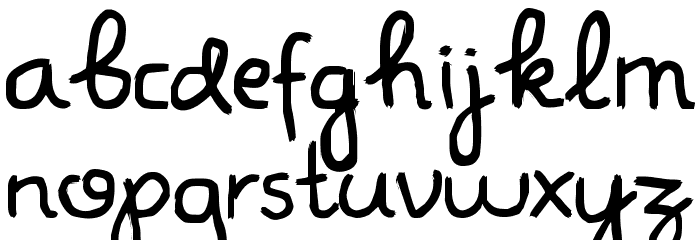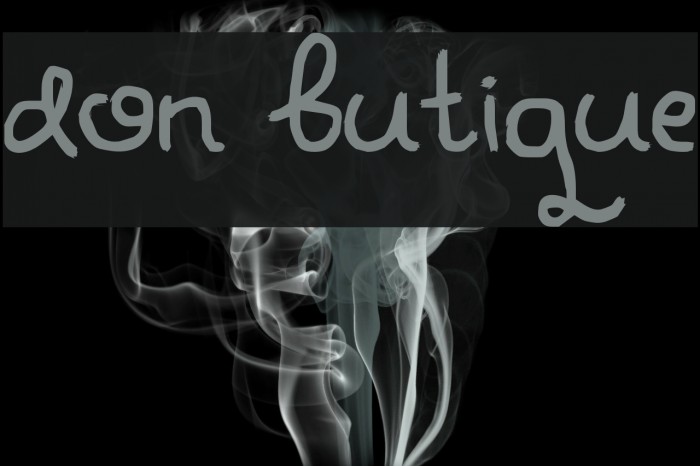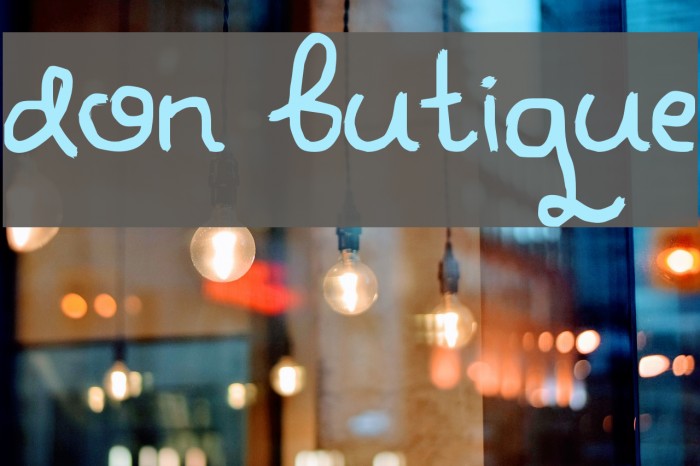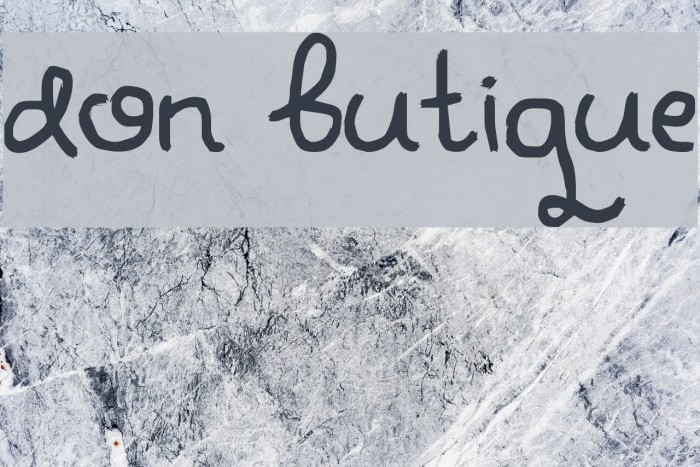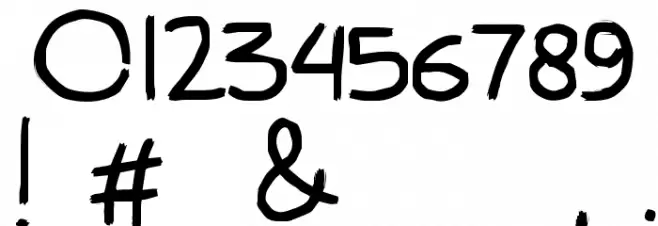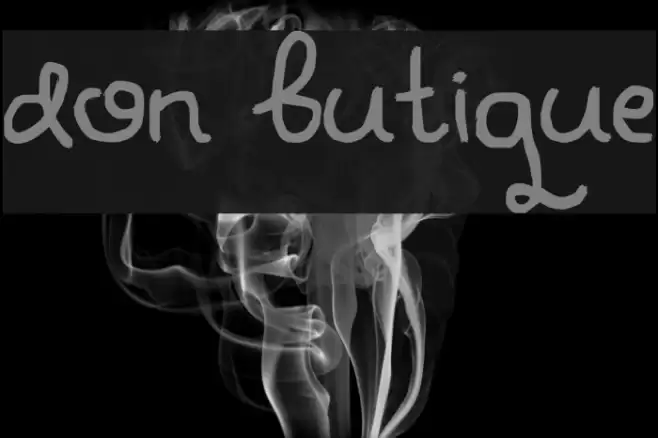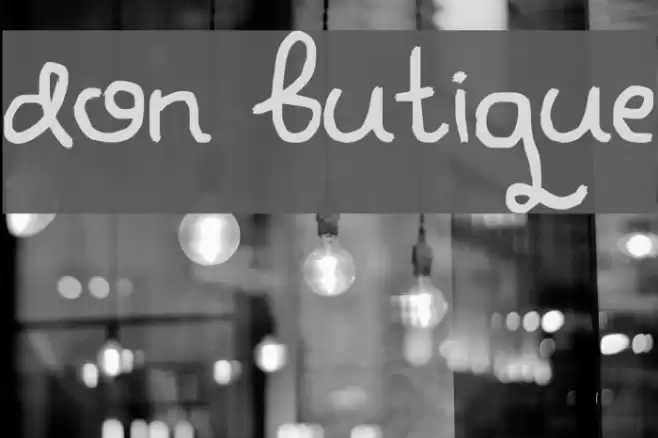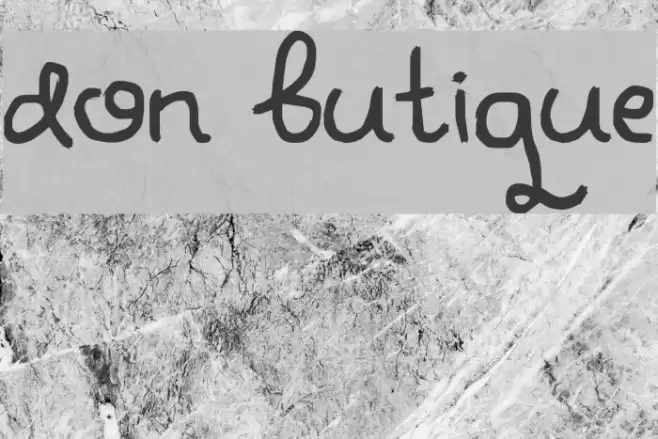
Don Butique Font
This font exhibits a playful and casual handwritten style, characterized by its bold and slightly irregular strokes. The letters have a whimsical quality, with varying heights and widths that add to its informal charm. The uppercase and lowercase letters maintain a consistent flow, while the numerals and special characters complement the overall aesthetic. The font's organic appearance makes it suitable for projects that require a personal touch, such as invitations, greeting cards, or creative branding. Its unique style captures attention while remaining legible, making it versatile for various design needs.
A playful, bold handwritten font with an informal and whimsical style.
- Proposed Projects: Ideal for invitations, greeting cards, creative branding, and personal projects.
- Overall Style: Casual, Playful
- Use Case: Headlines, Logos, Invitations